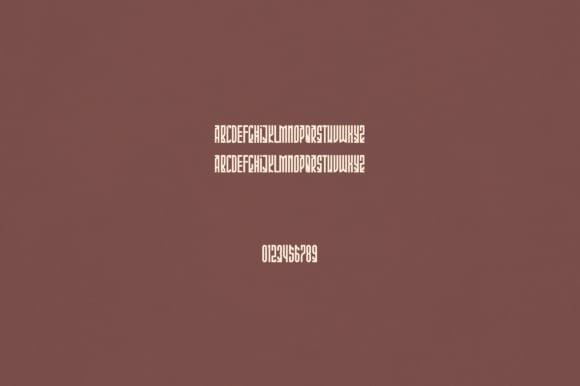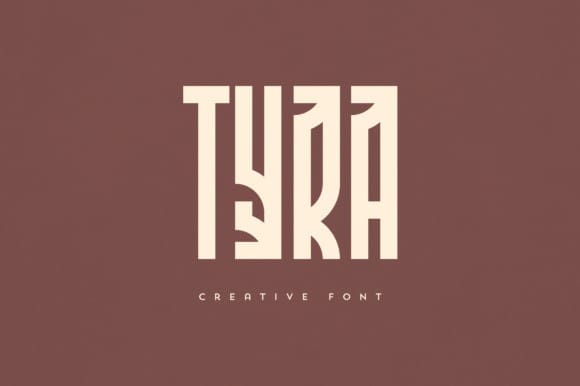
Tyra Font
Tyra Font is an elegant and versatile display font that will make your typography truly unique! It will enchant every logo, branding, headline, or plain text!